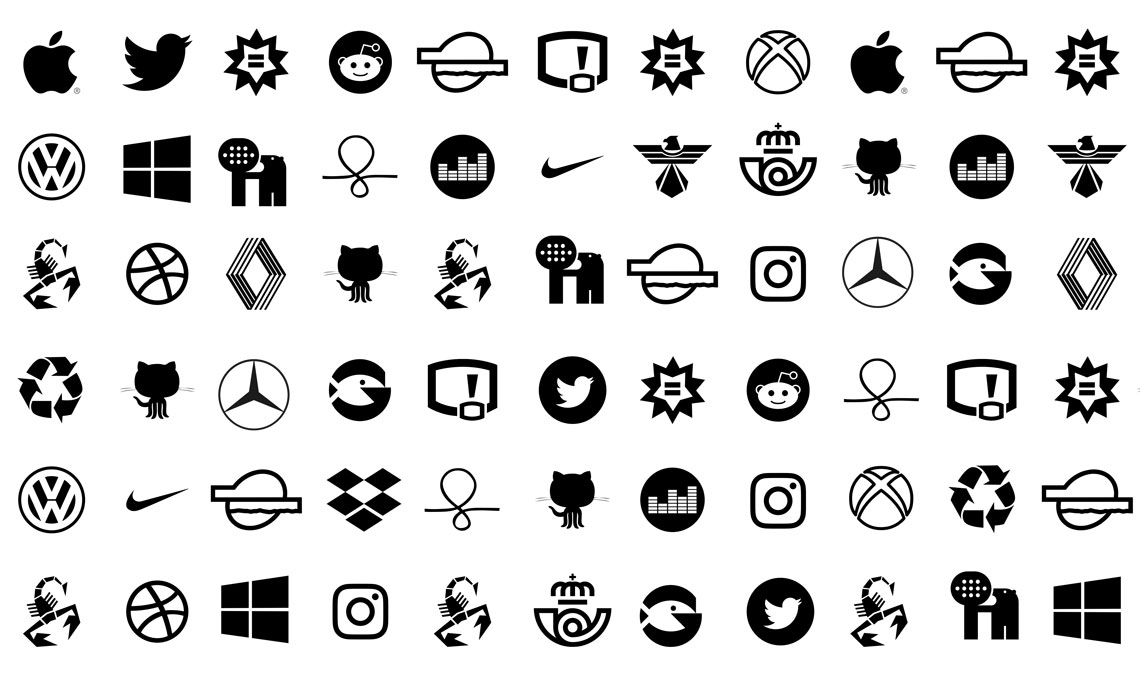
Happy New Branding!
The new year always brings renewed design enthusiasm to us all. Starting in 2020, we will publish a series of articles with solid design advice put together by our type and graphic design experts. With this first one, forget all the design dead ends of the previous year and start brand new projects with these design tips by the branding guru and TypeTogether co-founder, José Scaglione .
1. There’s No ‘best font’ for corporate identity
Yes, the World Wide Web is really wide, and it is possible to find lists for pretty much everything. Some of them are neatly crafted and might be good for checking what’s new. Others are no more than a collection of links put together without rhyme or reason. It’s always important to understand that fonts will be right or wrong for a brand based on a multiplicity of factors. Their efficiency can only be assessed in context. What works great for one company may be disastrous for the next. Relying on random font lists for guidance is amateurish at best and lazy at worst, and it leads to capricious and unfortunate type choices.
2. Resist Being too trendy and modern
Pursuing typographic trends and technological imagery can be appealing and even a perfect choice for graphics with a short lifespan. When font hunting, graphic designers are likely to be bombarded with images and ads featuring type families that look a lot like each other, as they all follow the latest typographic fashion. But trends and technology change quickly, causing brands to look aged in a matter of months.
3. MAJOR BRANDS Can’t Transfer  POPULARITY
What do Adidas, ExxonMobil, Bloomingdale’s, and Macy’s have in common? They are successful brands and they use Avant Garde Gothic (or modified versions of it). This does not mean that, if you use the same font, their popularity will be magically transferred to your work. And the idea that this “will make a company look legit” is simply wrong. There is no competitive advantage in mimicking the typography of other successful brands, mainly because branding is about being unique, different, recognizable, and memorable.
As a side note, many well-established companies chose to use classic fonts because at some point — not that long ago — there simply were not a lot of good ones available. Whether the fonts made the brands famous or the brands made the fonts famous is a separate discussion altogether.
4. Symbol, Letter, or Both?
You’re right, this is a spin-off from my previous point. Many clients will ask for a symbol that represents them — a symbol that stands for itself. However, Apple, BMW, and Nike required millions of dollars-worth of advertising and many years until their symbols were recognised. And while having a nice symbol is great, a good logo or wordmark cannot rely on that alone. It must also have good letters; ones that fit its voice and its market.
5. A font Is Not A Logo Is Not A Font
Installing a font and typing the brand name does not make a logo. This is due to a wide range of reasons. The main one being that typefaces are designed in such a way so any one letter can fit before and after any other letter. This is a condition inherent to the very essence of typography: the type designer does not know what will be written with their lettershapes. In the case of logotypes, a designer who already knows what will be the written can carefully tweak each letter to create a more harmonious, cohesive, and appealing shape.
Additionally, if a logo will be printed on billboards and business cards, by offset and laser printers, and also reproduced in both high and low-res screens, it is important to have different versions of the logo to fit the different technical requirements.
Retail typography vs custom lettering. Notice in the design on the right: widened P, rounder O, longer arms of E, and new leg on R. Design by César Sesio.
6. Oh, no! Not neutrality again
There is an identity side to letters. Type communicates but it also represents, and it is as important as iconography and colours when it comes to corporate identity programs. When the idea of neutrality results from carefully crafted briefs and proper in-depth research, then typography, as well as other design elements, must be chosen to fit that. But neutrality has become the holy grail of uninformed or lazy designers, and it has been historically overrated.
There is nothing inherently great (or horrible) about being neutral. So, don't automatically use that neutral font you’re thinking about right now until the brand research phase has been completed.
7. really liking a font Isn’t Enough
If the answer to the question, “Why did you choose this font?” is, “Because I like it,” chances are you are making a mistake. Typefaces play a leading role in corporate identity programs. This is true for both the lettering in the logo itself as well as with the supporting typefaces. The font selection process must acknowledge complex issues regarding language support, graphic style, brand coherence, and technical constraints. Such an important and multilayered decision cannot be left to personal whims or mere subjective taste.
A special mention is needed about gender-related subjectivity. This happens when, for instance, a delicate or ornate font is selected to represent a female-oriented product. Do not do it! Women are stronger than you may assume, but delicate fonts are not and they will degrade at small sizes, on rough paper, or in bad printing conditions.
We already discussed that it is worthless to follow what other brands do and the disadvantages of following trends. In the same vein, designers must approach each project as a unique problem that requires a specific solution.
This is one challenge that makes graphic design an exciting profession. It gives an opportunity to move outside our comfort zones, experiment, and discover new graphic and typographic solutions.
In other words, be thoughtful and informed but bold. Don’t follow dogmas. There are great new fonts out there and one of them is perfect for your brand!